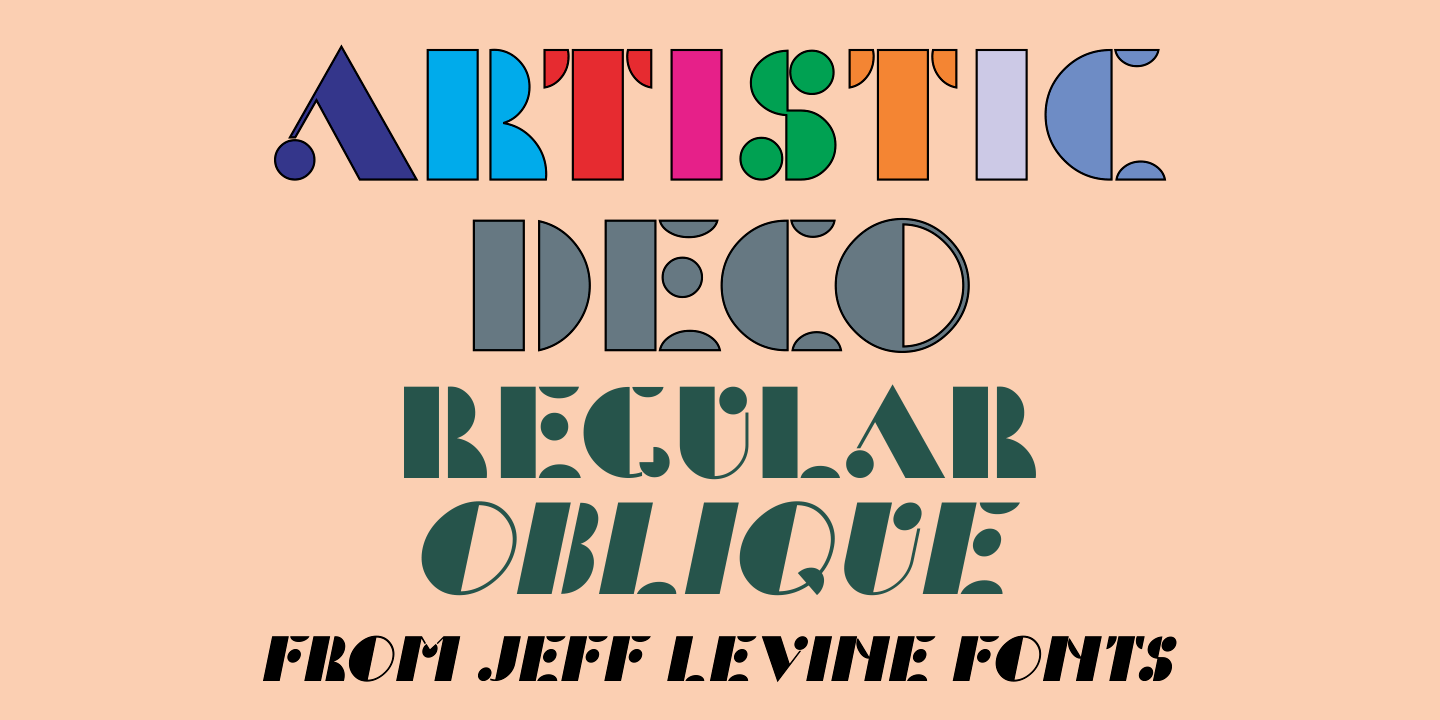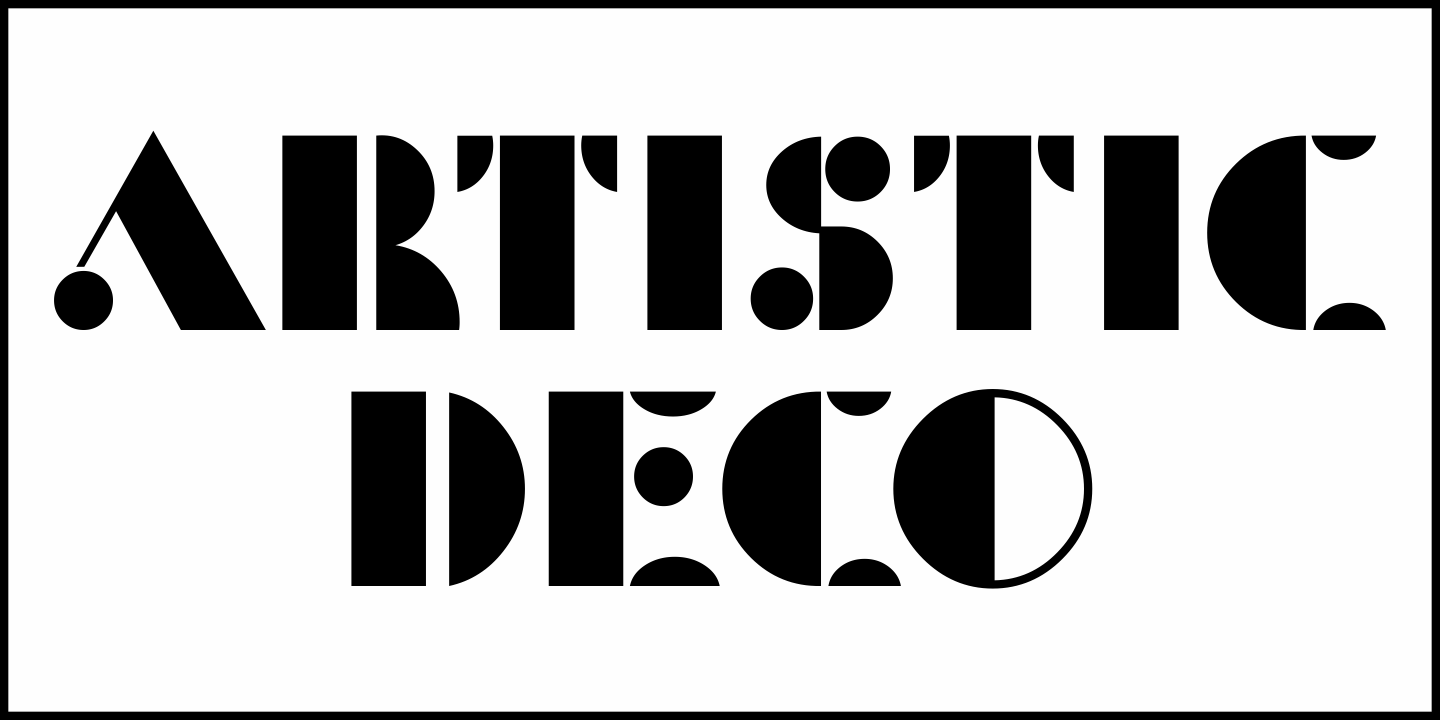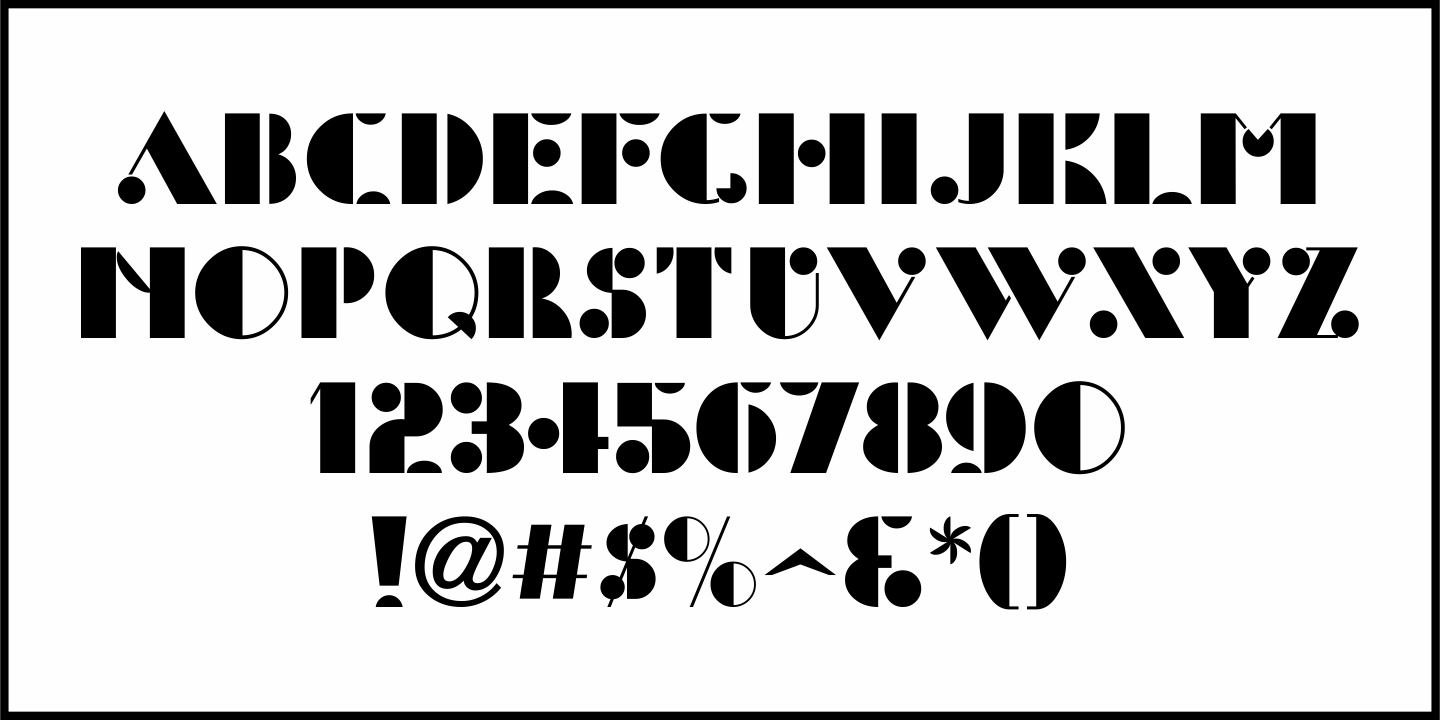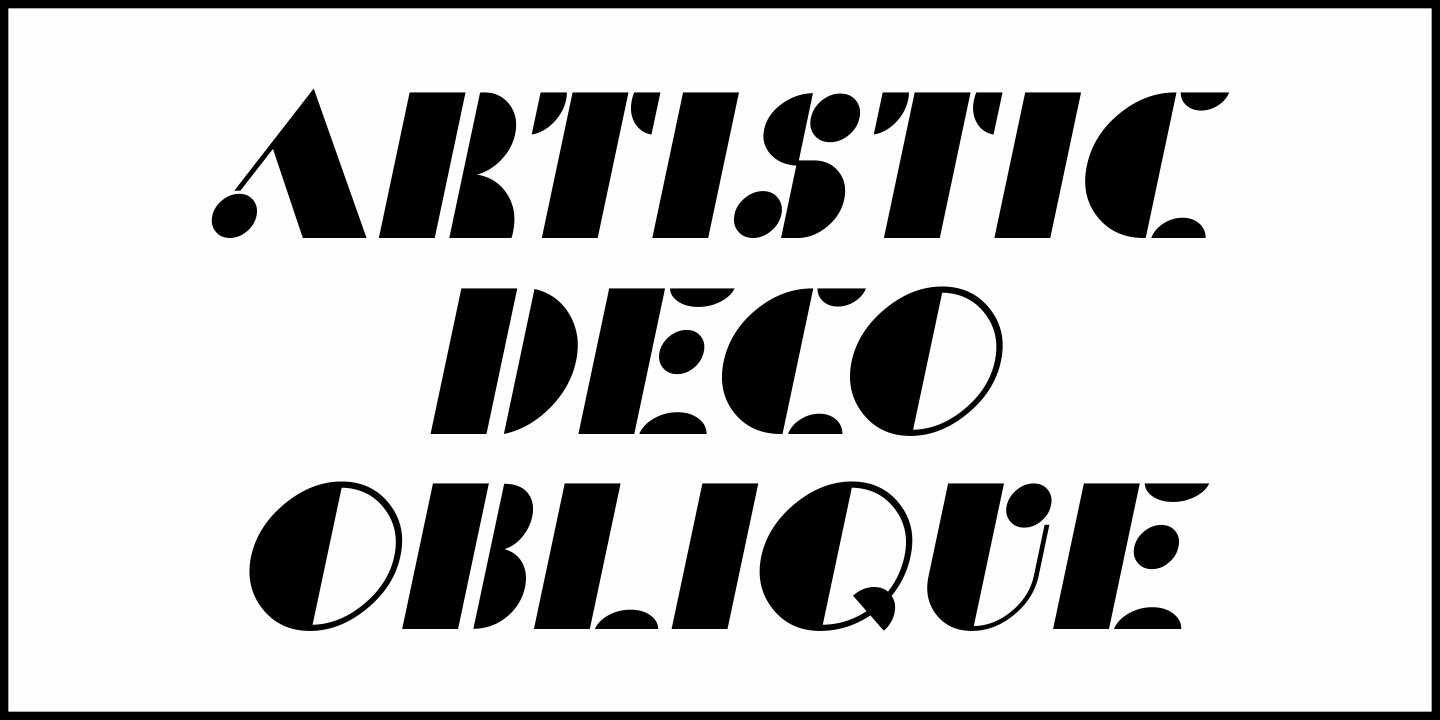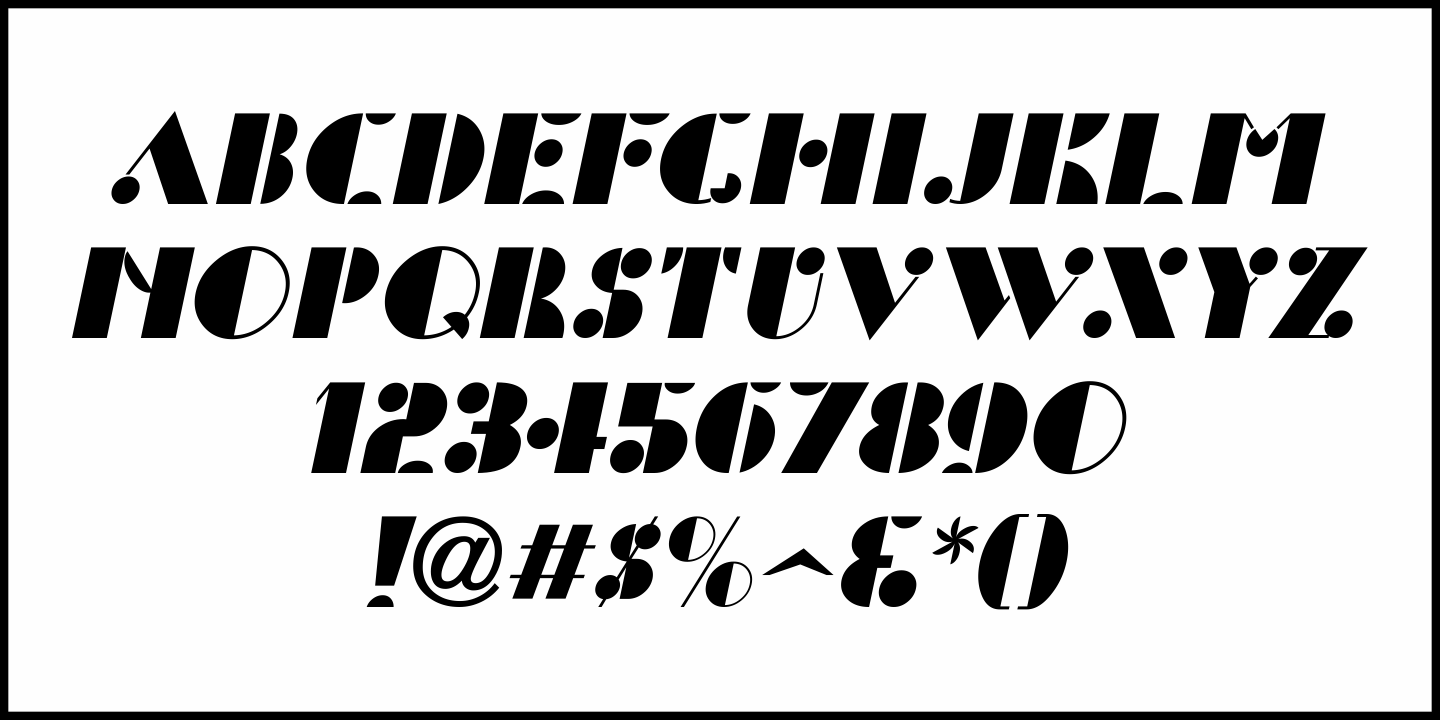
Artistic Deco
An interesting take on the ever-popular Futura Black style of type design was created as "Modern Lettering" by R. E. Cote in 1931. Integrating circles and semicircles into the character shapes added a new dimension to a sometimes overused form of Art Deco lettering.
This is now available digitally as Artistic Deco JNL in both regular and oblique versions.